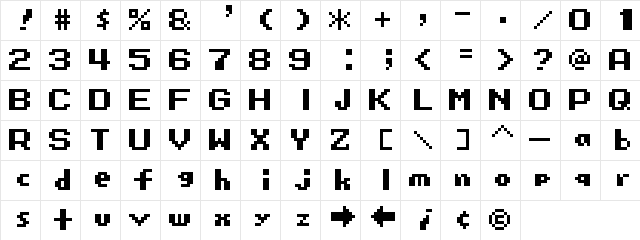
Font Man Regular
Design Context for Font Man Typeface
Font Man is a composed and adaptable typeface that performs quietly and consistently across a wide range of design contexts.
Pro Tip: Use Font Man in both headline and body roles to test its range before committing to a single application.